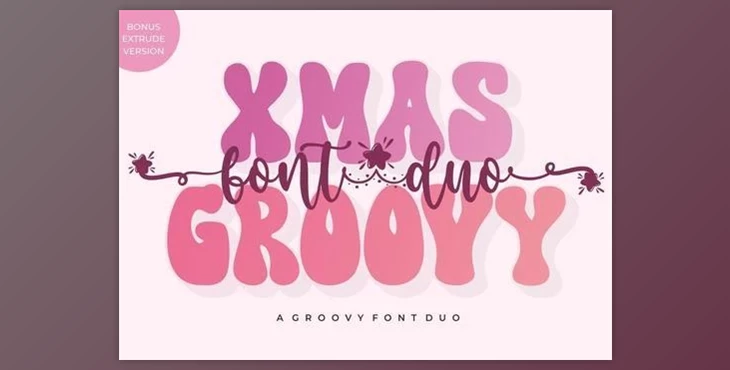
Xmas Groovy Font Duo: Excitingly presenting Xmas Groovy, a versatile and classy font duo from Jinanstd. This groovy and stylish combination of display and script fonts is perfect for many applications, including greeting cards, headlines, stickers, and more. Elevate your creative projects with the unique charm of Xmas Groovy.
Unleash the creative possibilities of Xmas Groovy, designed to add a touch of uniqueness to your designs and make a lasting impression.
Some great features of Xmas Groovy Font Duo:
- Designer, Publisher: Jinanstd